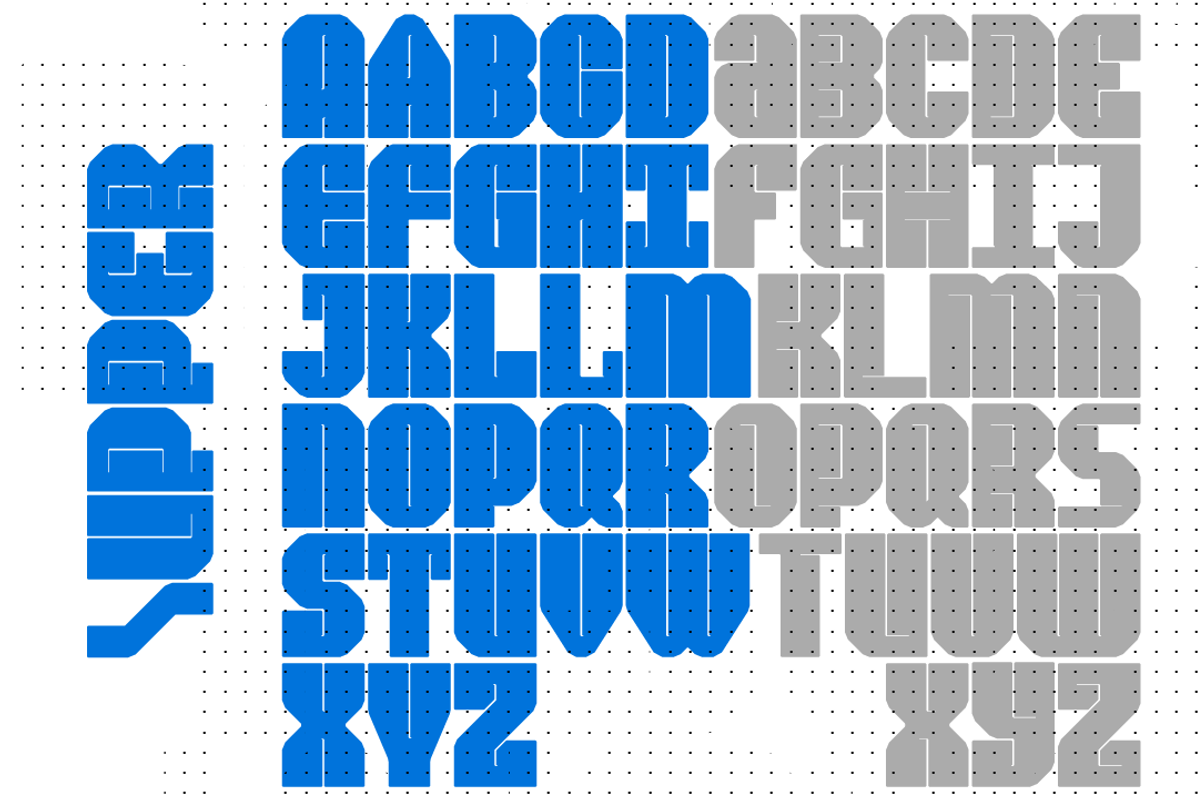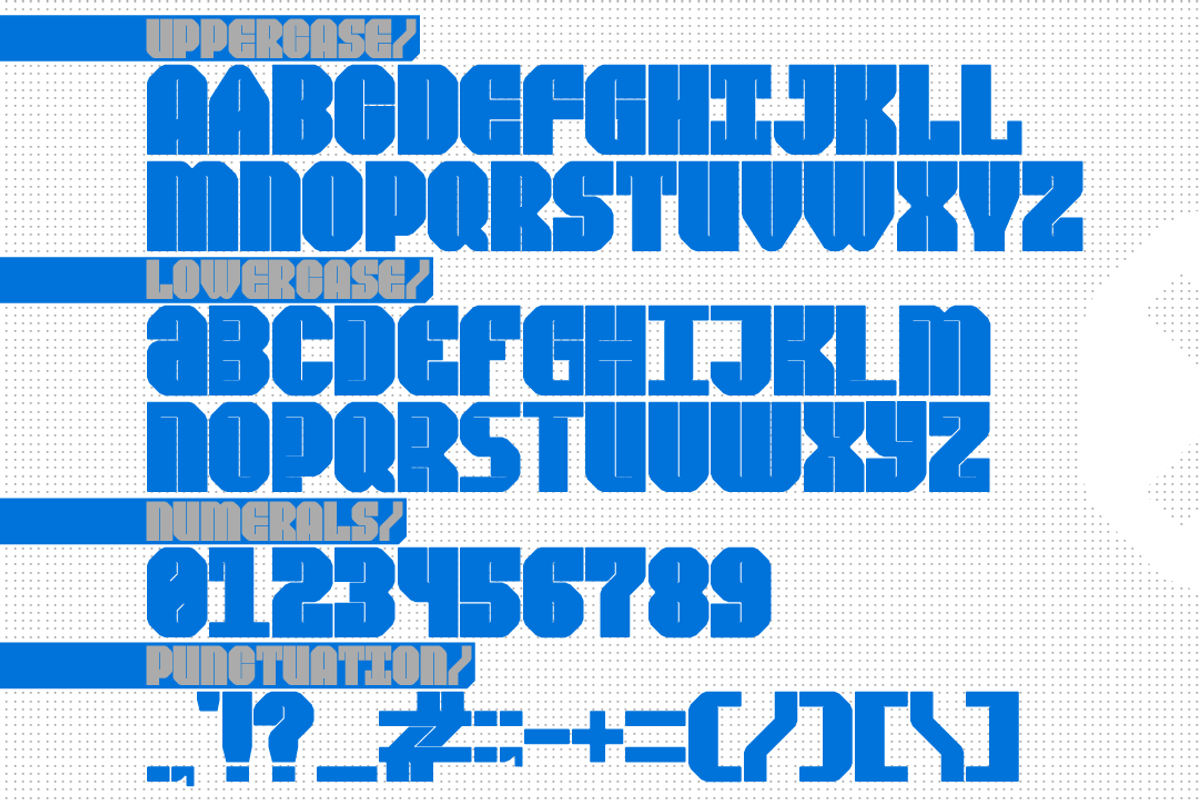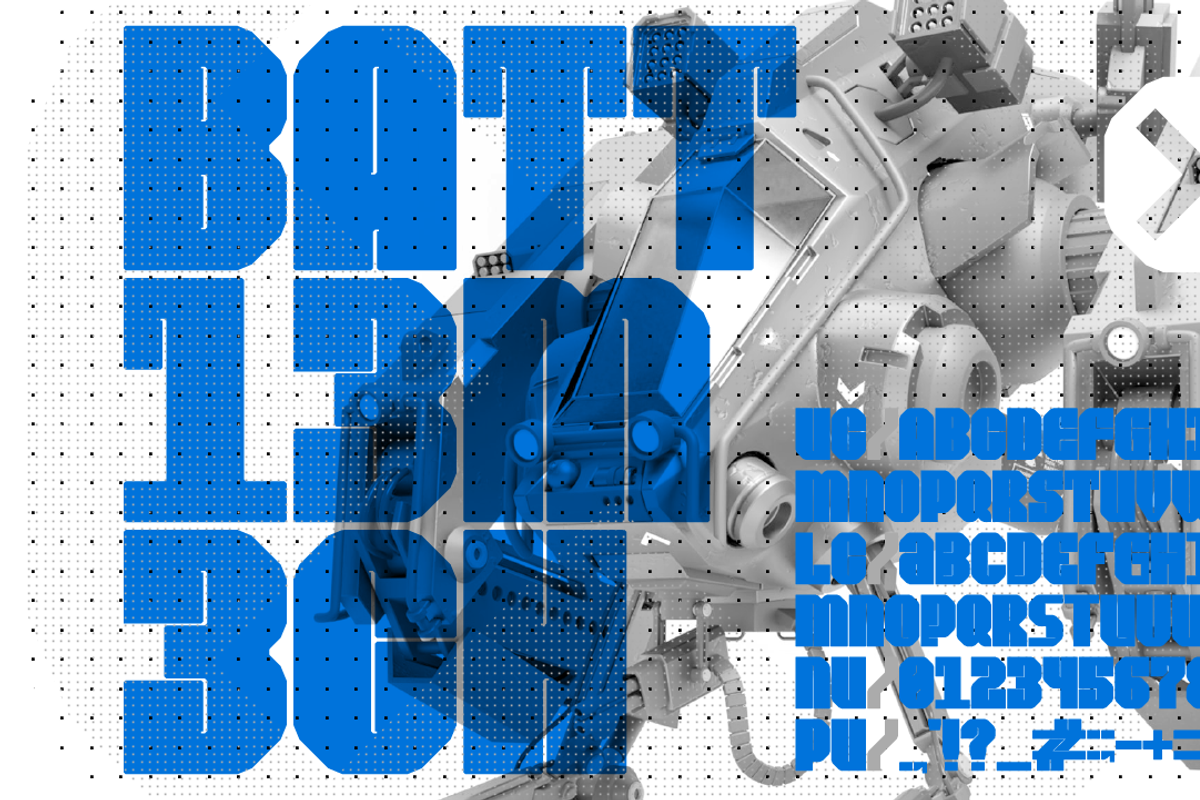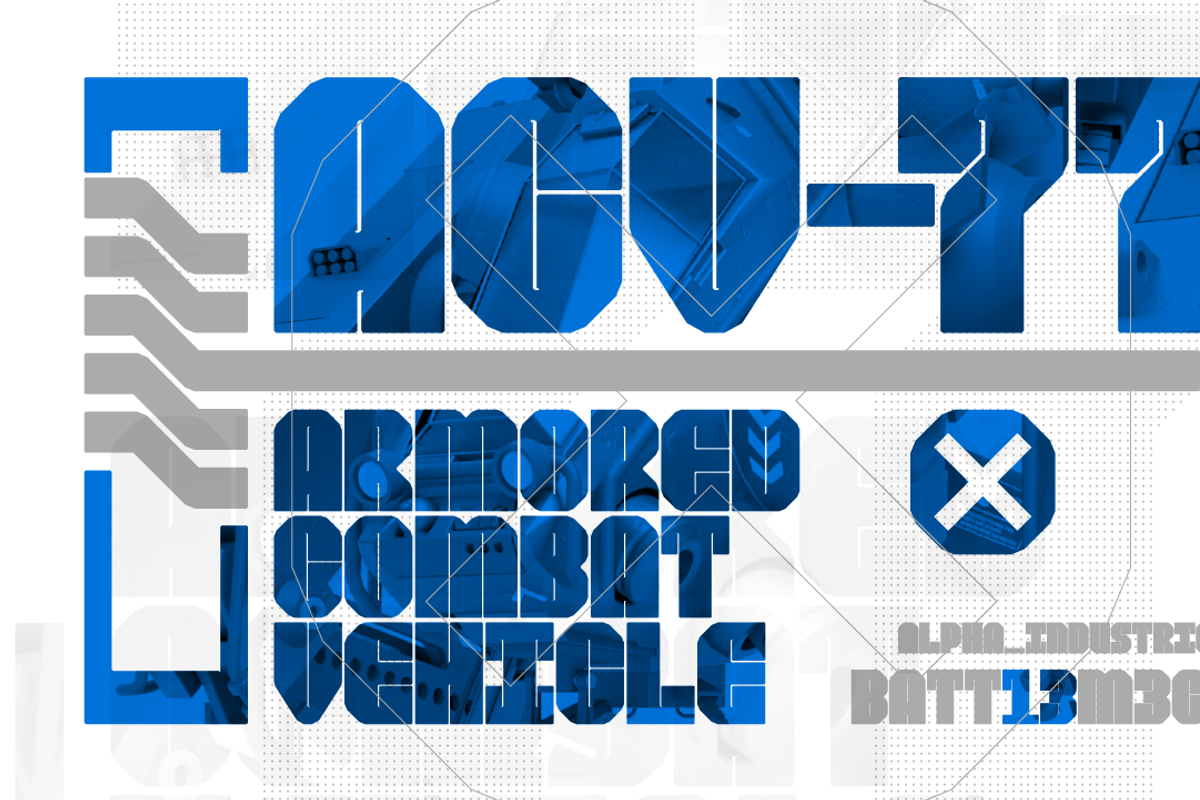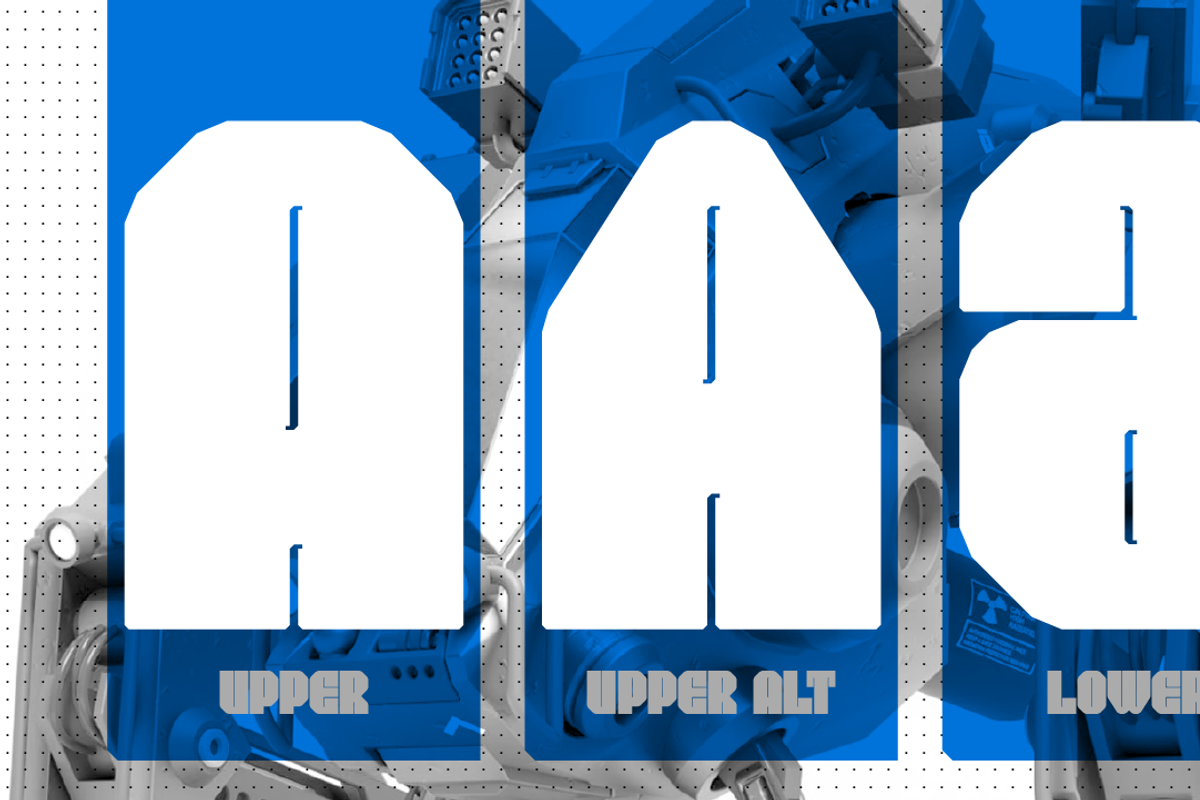
BATT13M3CH
COMBAT MECH TYPEFACE
"BATT13M3CH" is a brutal structured bold display font with varying styles on Upper Lower and Alternative characters.
Perfect font choice for all your combat, tech inspired streaming graphics.